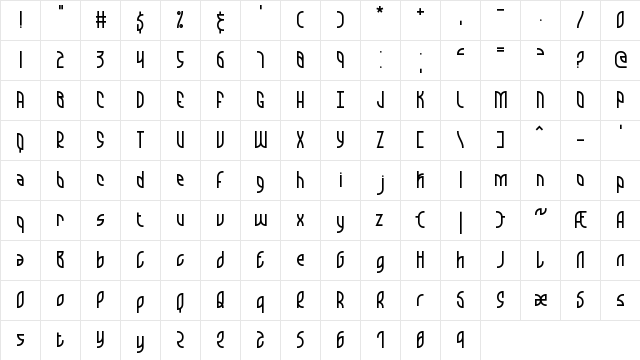
Quarantine BRK Normal
| Foundry | ƎIGMA FONTS |
| Designer | ƎIGMA FONTS - Brian Kent |
Design Context for Quarantine BRK Typeface
Quarantine BRK is a composed and adaptable typeface that performs quietly and consistently across a wide range of design contexts.